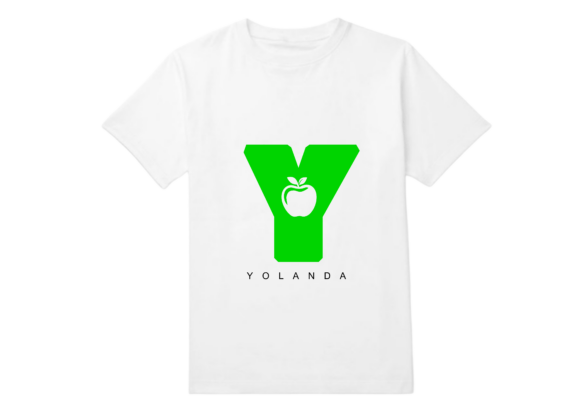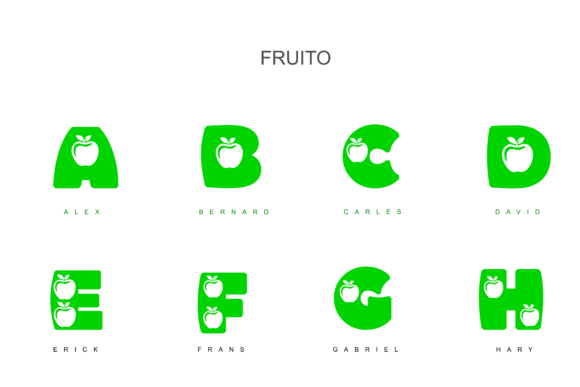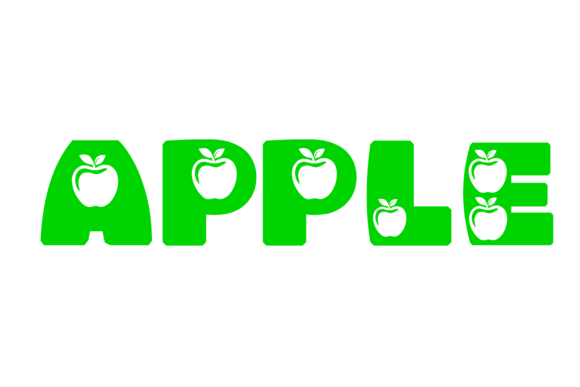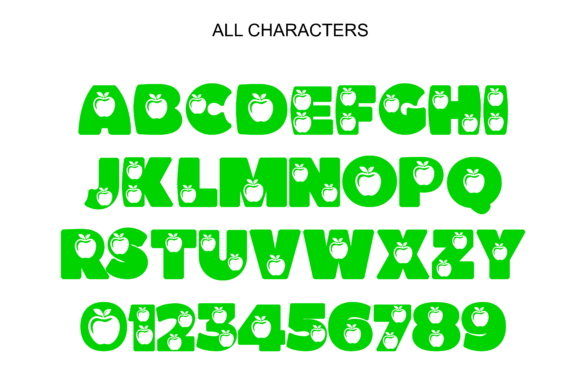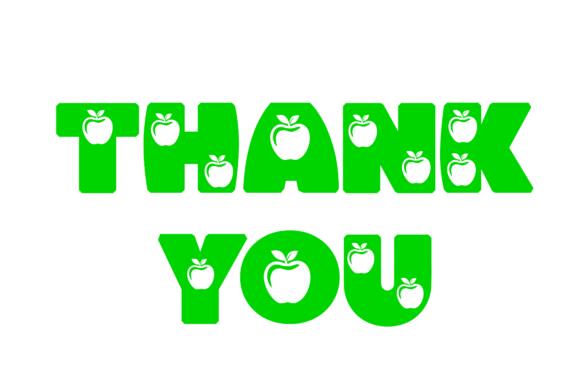
Fruito Font: The Perfect Choice for Healthy Food Branding and More
Are you a designer or crafter looking for a unique and eye-catching font to elevate your brand or product? Look no further than Fruito Font, a bold and cheerful theme font that’s filled with fruity apple icons inside every letter. With its vibrant and lively design, Fruito is perfect for healthy food branding, organic packaging, farmer’s markets, and kids’ product designs.
What is Fruito Font?
Fruito Font is a specially designed font that features a playful and whimsical theme. Each letter in the font is carefully crafted to include a fruity apple icon, giving it a fun and lively feel. The font is bold and eye-catching, making it perfect for headlines, titles, and other design elements where you want to make a statement.
Characteristics of Fruito Font
Fruito Font has several characteristics that make it stand out from other fonts. Some of its key features include:
- Bold and Cheerful Design: Fruito Font has a bold and cheerful design that’s sure to grab attention.
- Fruity Apple Icons: Each letter in the font features a fruity apple icon, adding a playful touch to your designs.
- Vibrant and Lively: The font has a vibrant and lively feel that’s perfect for designs that need to pop.
- Perfect for Healthy Food Branding: Fruito Font is specifically designed with healthy food branding in mind, making it a great choice for packaging, labels, and marketing materials.
Use Cases for Fruito Font
Fruito Font is a versatile font that can be used in a variety of design projects. Some of the most popular use cases include:
- Healthy Food Branding: Fruito Font is perfect for healthy food branding, including packaging, labels, and marketing materials.
- Organic Packaging: The font’s natural and earthy feel makes it a great choice for organic packaging and labeling.
- Farmer’s Markets: Fruito Font is a great choice for farmer’s market signage, flyers, and other promotional materials.
- Kids’ Product Designs: The font’s playful and whimsical design makes it a great choice for kids’ product designs, including toys, clothing, and accessories.
Benefits of Using Fruito Font
There are many benefits to using Fruito Font in your design projects. Some of the most significant advantages include:
- Unique and Eye-Catching: Fruito Font is a unique and eye-catching font that’s sure to grab attention.
- Playful and Whimsical: The font’s playful and whimsical design adds a fun touch to your designs.
- Perfect for Healthy Food Branding: Fruito Font is specifically designed with healthy food branding in mind, making it a great choice for businesses in this industry.
- Easy to Read: Despite its playful design, Fruito Font is easy to read and can be used in a variety of design applications.
Tips for Using Fruito Font
Here are a few tips for using Fruito Font in your design projects:
- Use it as a Headline Font: Fruito Font is perfect for headlines and titles, where its bold and eye-catching design can really shine.
- Pair it with a Simple Font: To create visual interest, pair Fruito Font with a simple font for body text.
- Experiment with Colors: Fruito Font looks great in a variety of colors, so don’t be afraid to experiment and find the perfect hue for your design.
Fruito Font is a unique and eye-catching font that’s perfect for healthy food branding, organic packaging, farmer’s markets, and kids’ product designs. With its bold and cheerful design, fruity apple icons, and vibrant feel, Fruito Font is sure to add a playful touch to your designs. Whether you’re a designer or crafter, Fruito Font is a great choice for any project that needs a little extra personality.